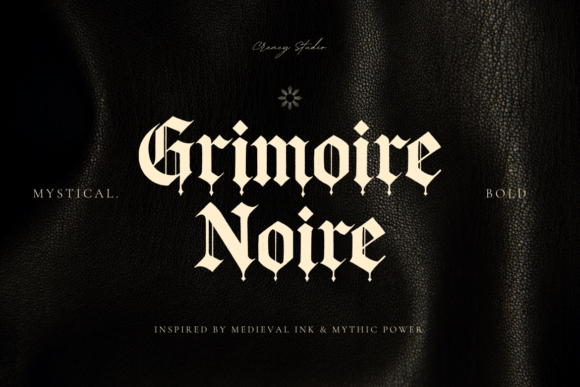
Unveiling Grimoire Noir: The Ultimate Gothic Blackletter Typeface
In the realm of typography, few fonts evoke the mystique and allure of the Medieval epoch as effectively as Grimoire Noir. This classic Gothic blackletter typeface is designed to transport you to an era of ancient manuscripts, hallowed cathedral carvings, and fabled legends. With its robust vibrancy and elegant modernity, Grimoire Noir is the perfect choice for designers seeking to infuse their projects with a sense of dark fantasy, mystery, and sophistication.
Key Features of Grimoire Noir
- Gothic Blackletter Design: Grimoire Noir boasts a traditional Gothic blackletter design, characterized by dramatic flourishes and intricate letterforms.
- Medieval Inspiration: The font draws inspiration from age-old manuscripts, cathedral carvings, and legendary tales, ensuring an authentic and immersive experience.
- Modern Elegance: Grimoire Noir seamlessly blends traditional Gothic elements with modern typographic sensibilities, resulting in a sophisticated and versatile font.
Ideal Use Cases for Grimoire Noir
Grimoire Noir’s unique blend of Gothic flair and modern sophistication makes it an excellent choice for a variety of design projects, including:
- Dark Fantasy Motifs: Create captivating and eerie designs for book covers, posters, or digital art projects with Grimoire Noir’s haunting letterforms.
- Immersive Video Game Entries: Transport players to a world of mystery and intrigue with Grimoire Noir’s bold and captivating typography.
- Gripping Novel Jackets: Add a touch of Gothic elegance to your book covers and make them stand out with Grimoire Noir’s distinctive font.
- Retro Branding: Infuse your brand with a sense of nostalgia and sophistication using Grimoire Noir’s vintage-inspired design.
- Influential Heavy-Metal Designs: Channel the raw energy and power of heavy metal music with Grimoire Noir’s bold and striking typography.
Typographic Details: What Sets Grimoire Noir Apart
Grimoire Noir’s design is rooted in a deep understanding of typographic history and aesthetics. Some notable features include:
- Intricate Letterforms: Each letterform in Grimoire Noir is meticulously crafted to evoke a sense of mystery and ancient wisdom.
- Flourishes and Swashes: The font includes a range of flourishes and swashes, allowing designers to add an extra layer of elegance and sophistication to their work.
- Kerning and Ligatures: Grimoire Noir features carefully crafted kerning and ligatures, ensuring a smooth and harmonious reading experience.
Design Inspiration: The Cultural Significance of Grimoire Noir
Grimoire Noir’s design is inspired by the rich cultural heritage of the Medieval epoch. Some key influences include:
- Medieval Manuscripts: The font draws inspiration from illuminated manuscripts, such as the Lindisfarne Gospels and the Book of Kells.
- Cathedral Carvings: Grimoire Noir’s design is influenced by the intricate carvings found in Gothic cathedrals, such as Notre-Dame de Paris.
- Fabled Legends: The font’s mystical and enigmatic feel is inspired by legendary tales of old, such as the stories of King Arthur and the Knights of the Round Table.
The Benefits of Using Grimoire Noir
By incorporating Grimoire Noir into your design projects, you can:
- Create a Unique Visual Identity: Grimoire Noir’s distinctive design ensures that your work stands out from the crowd.
- Evoke a Sense of Mystery and Intrigue: The font’s Gothic flair and mystical feel are perfect for creating an atmosphere of enigma and allure.
- Tap into the Power of History: Grimoire Noir’s roots in Medieval typography and culture lend a sense of authenticity and depth to your designs.
Unlock the Secrets of Grimoire Noir
In conclusion, Grimoire Noir is a versatile and captivating font that offers designers a unique gateway to the mystical world of Medieval typography. With its bold and elegant design, Grimoire Noir is the perfect choice for a wide range of design projects, from dark fantasy motifs to retro branding and heavy metal designs. Unlock the secrets of Grimoire Noir and discover a world of creative possibilities.